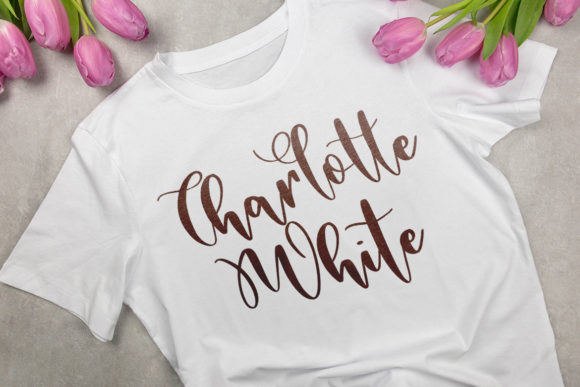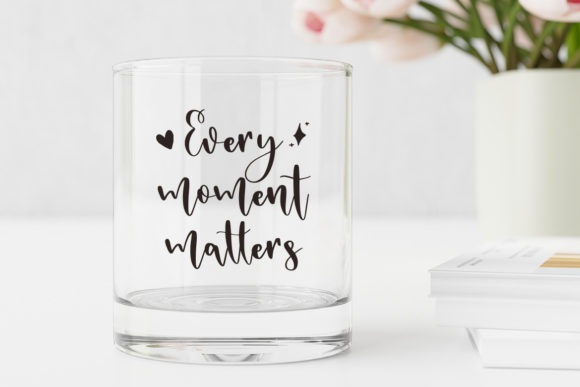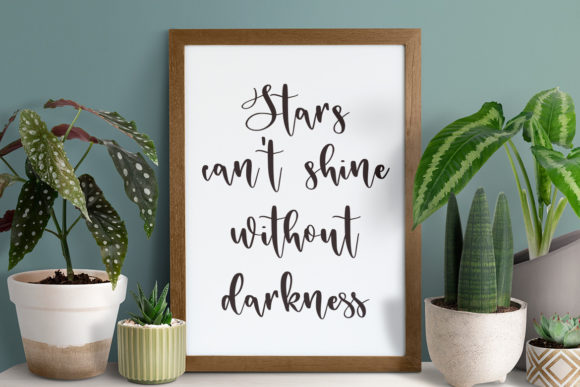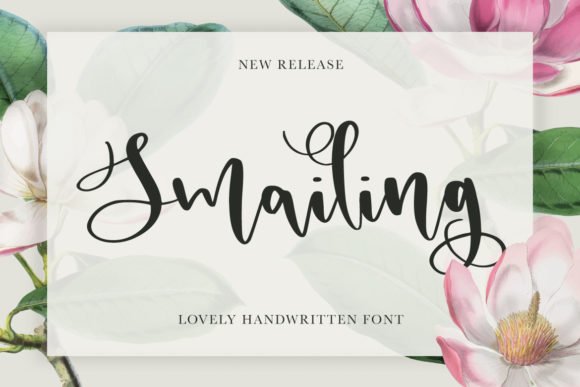
Introduction to Smailing Font
Smailing is a lovely and timeless handwritten font.
Key Features of Smailing Font
Why Choose Smailing Font?
Smailing Font offers exceptional quality and versatility, making it a valuable addition to your design toolkit. Whether you’re creating for personal projects or commercial use, Smailing Font delivers professional results.